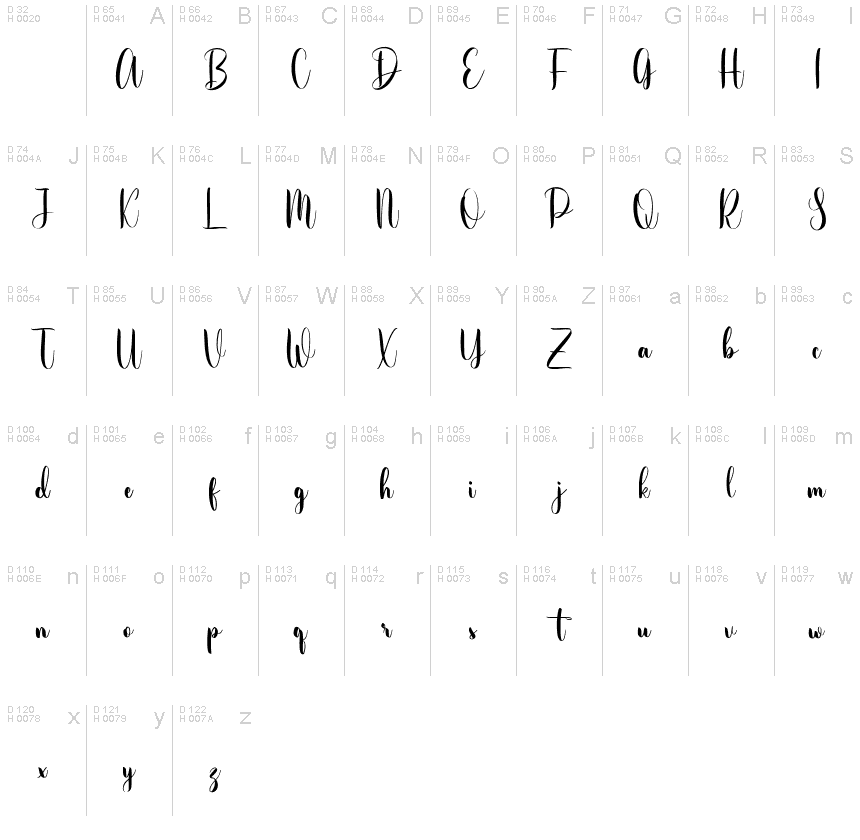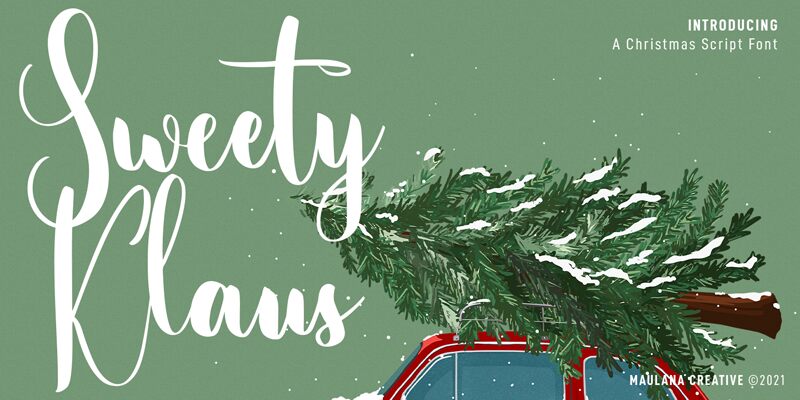
Sweety Klaus Free Regular
Sweety Klaus is a stunning semi-light calligraphy font designed by Maulana Creative. With its elegant and flowing lines, this font exudes charm and sophistication. Its semi-condensed width makes it perfect for a variety of projects, from wedding invitations to product packaging. Use it to add a touch of refinement to any project that requires a touch of handwritten elegance. Sweety Klaus is versatile enough to work in both print and digital media, making it an excellent choice for branding materials, social media graphics, and website design. Let Sweety Klaus elevate your next project with its graceful beauty and timeless appeal.